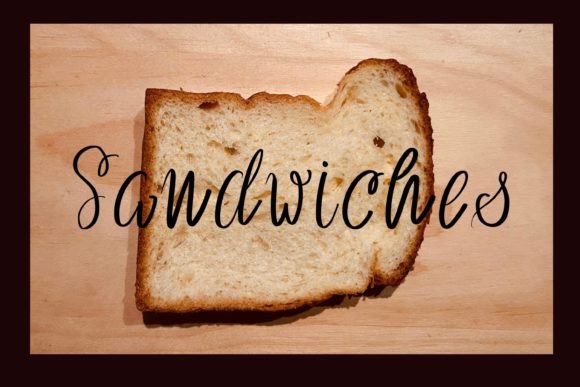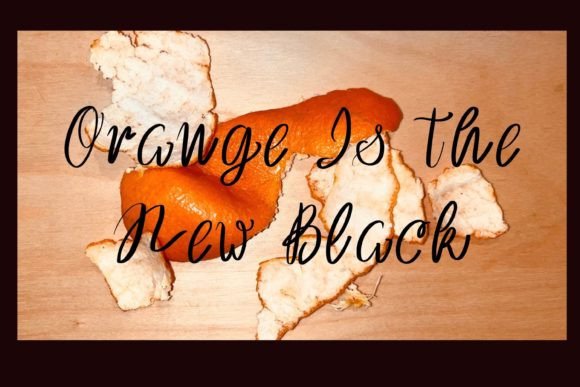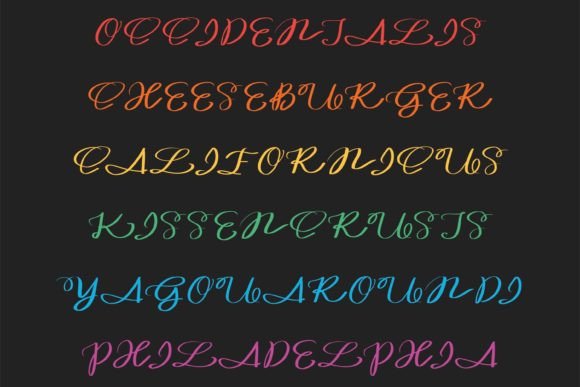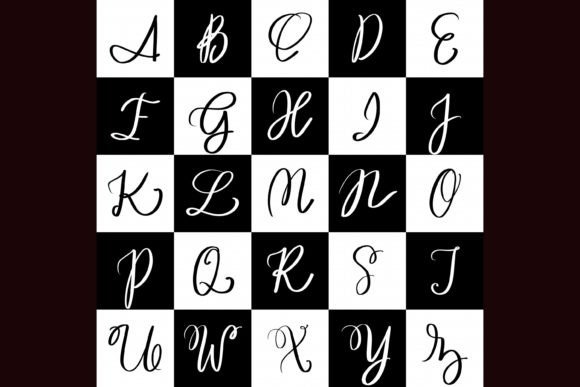
Aaron Font: The Perfect Handwritten Typeface for Your Creative Projects
Are you a designer or crafter looking for a font that adds a touch of personality to your creative projects? Look no further than the Aaron Font. This charming, stylish handwritten typeface is perfect for writing on cards, wedding invitations, and other designs that call for a feminine touch.
What Makes Aaron Font So Special?
Aaron Font is a jovial and laid-back typeface that exudes warmth and friendliness. Its handwritten style gives it a personal and approachable feel, making it ideal for projects that require a human touch. Whether you’re designing wedding invitations, greeting cards, or social media graphics, Aaron Font is sure to add a touch of elegance and sophistication.
Characteristics of Aaron Font
Aaron Font has several characteristics that make it stand out from other typefaces. Some of its key features include:
- Handwritten style: Aaron Font has a beautiful, handwritten style that gives it a personal and unique feel.
- Feminine touch: This font has a distinctly feminine touch, making it perfect for projects that require a delicate and elegant feel.
- Jovial and laid-back: Aaron Font has a friendly and approachable feel, making it ideal for projects that require a warm and welcoming tone.
- Legible and readable: Despite its handwritten style, Aaron Font is highly legible and readable, making it perfect for use in a variety of projects.
Uses for Aaron Font
Aaron Font is a versatile typeface that can be used in a wide range of creative projects. Some of the most popular uses for this font include:
- Wedding invitations: Aaron Font is perfect for wedding invitations, as it adds a touch of elegance and sophistication to your designs.
- Greeting cards: This font is also great for greeting cards, as it gives your designs a personal and friendly feel.
- Social media graphics: Aaron Font can be used to add a touch of personality to your social media graphics, making them more engaging and shareable.
- Stationery and paper goods: This font is perfect for designing stationery and paper goods, such as notebooks, journals, and stickers.
Tips for Using Aaron Font
Here are a few tips for using Aaron Font in your creative projects:
- Pair it with other fonts: Aaron Font pairs well with other fonts, such as sans-serif fonts like Arial or Helvetica. Experiment with different font combinations to find the perfect look for your project.
- Use it in moderation: While Aaron Font is beautiful, it can be overwhelming if used too much. Use it in moderation to add a touch of personality to your designs.
- Experiment with colors: Aaron Font looks great in a variety of colors, from soft pastels to bold brights. Experiment with different colors to find the perfect look for your project.
Aaron Font is a charming, stylish handwritten typeface that’s perfect for adding a touch of personality to your creative projects. Its jovial and laid-back style makes it ideal for projects that require a feminine touch, such as wedding invitations, greeting cards, and social media graphics. With its highly legible and readable design, Aaron Font is a versatile typeface that can be used in a wide range of creative projects. So why not give it a try and see how it can elevate your designs?